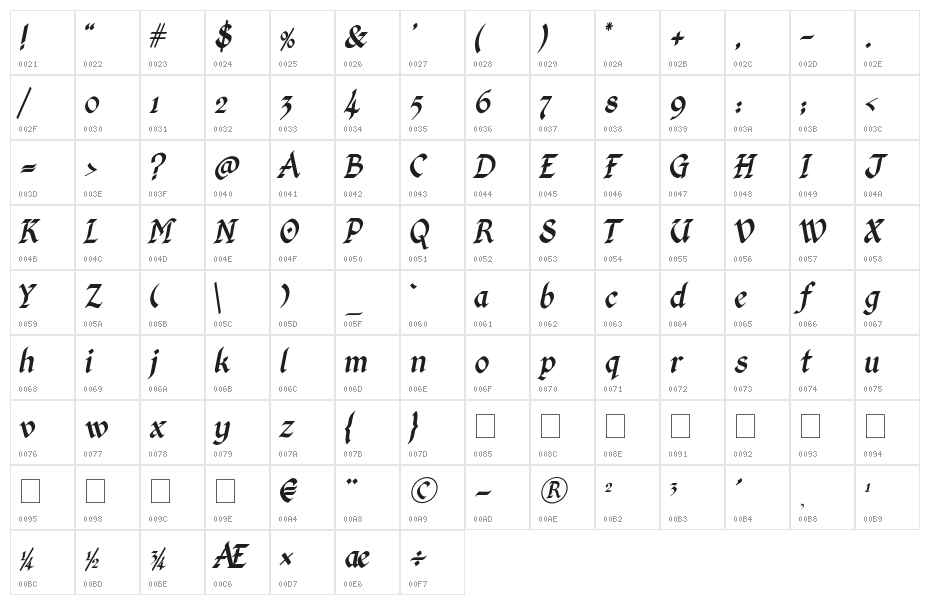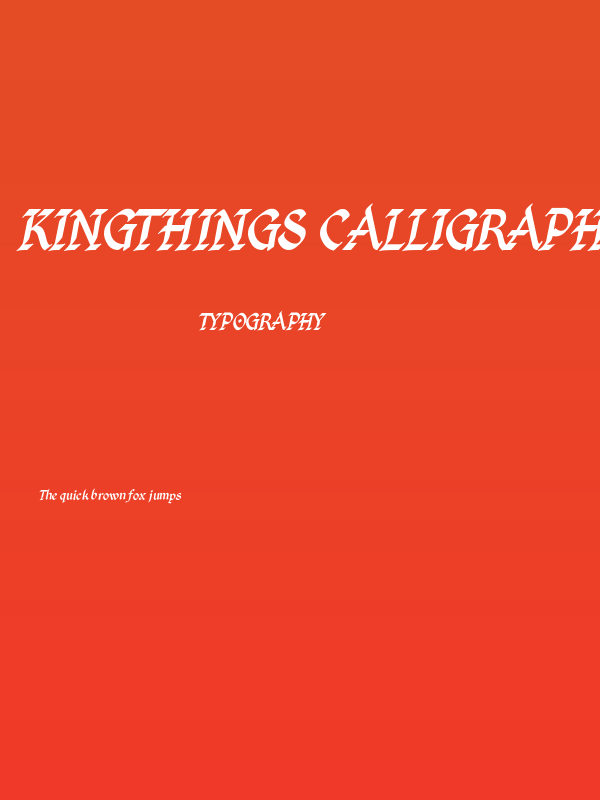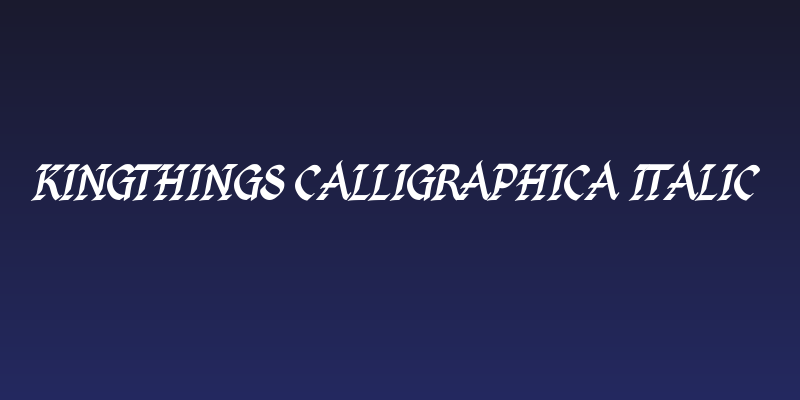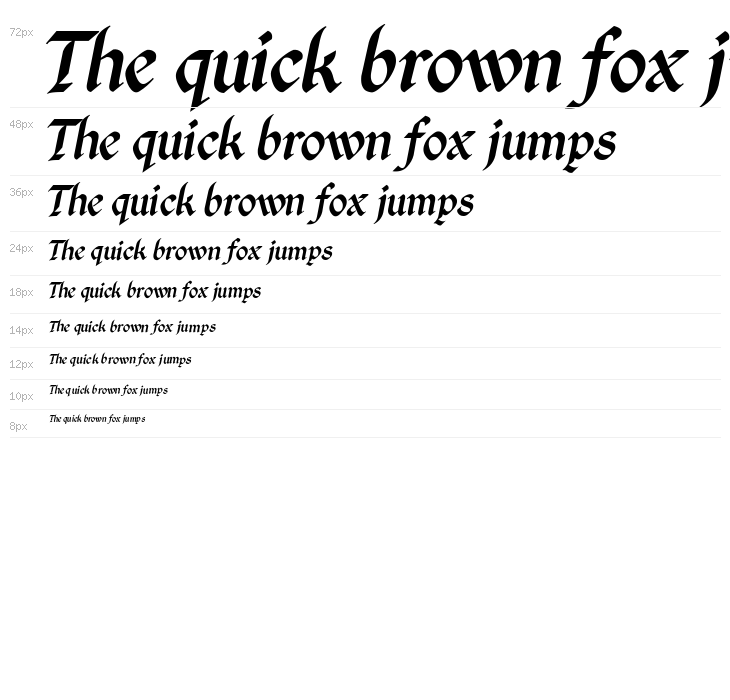
Kingthings Calligraphica Italic Font
Kingthings Calligraphica Italic Description
This font exudes a classic calligraphic style with a modern twist, featuring elegant, flowing strokes that mimic traditional handwriting. The characters are slightly slanted, enhancing the italicized effect, and the strokes vary in thickness, adding a dynamic and sophisticated look. The uppercase letters are bold and prominent, while the lowercase letters maintain a graceful continuity. The numerals and special characters are designed with the same attention to detail, ensuring consistency throughout. This font is perfect for projects that require a touch of elegance and formality.
| Use Case | Headlines, Invitations, Logos |
| Proposed Projects | Ideal for wedding invitations, formal event programs, elegant branding, and sophisticated packaging designs. |